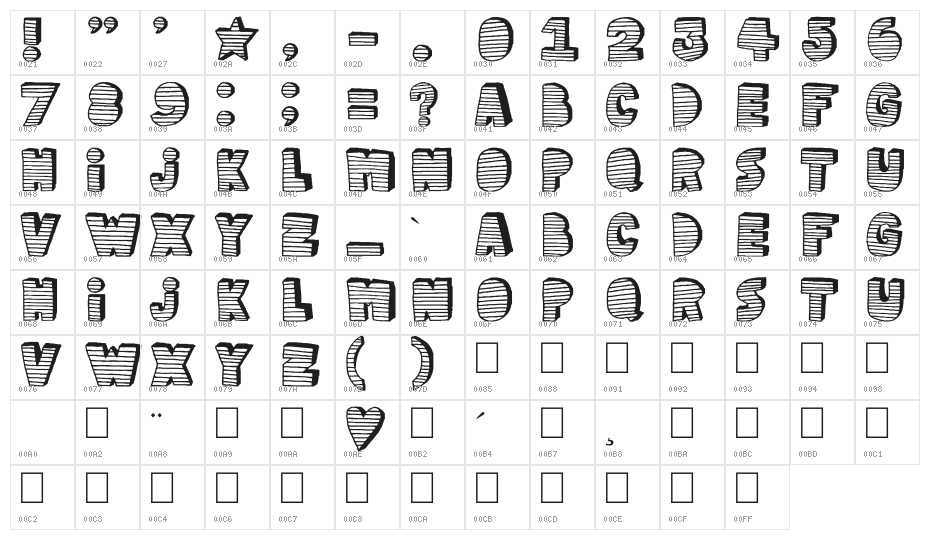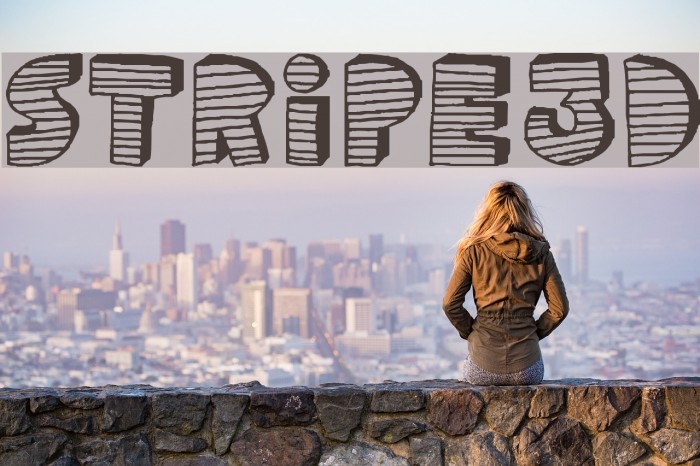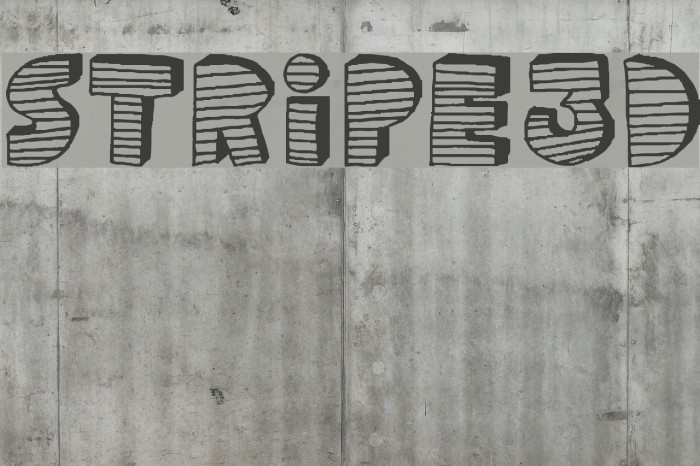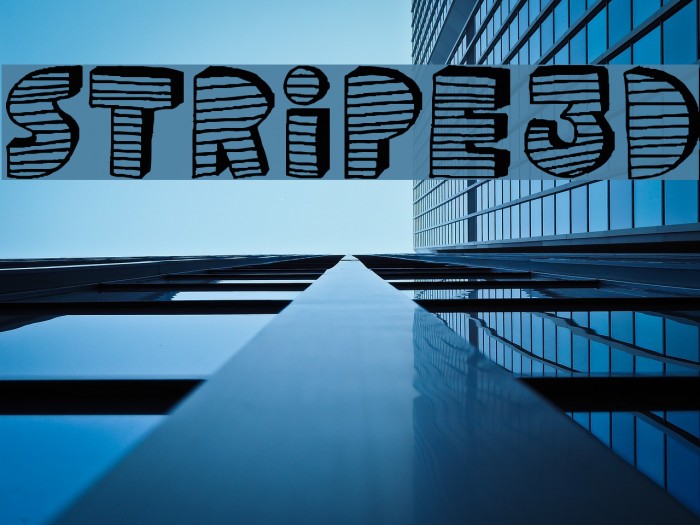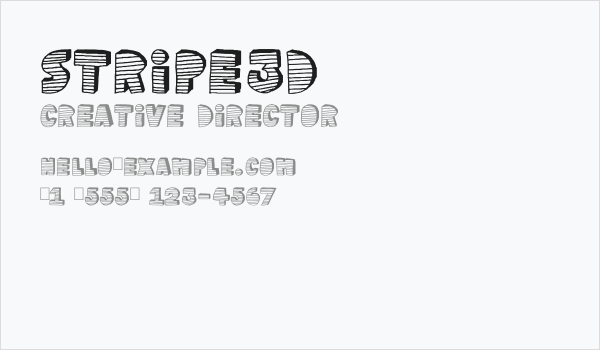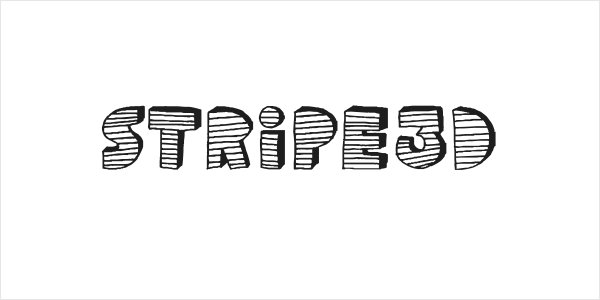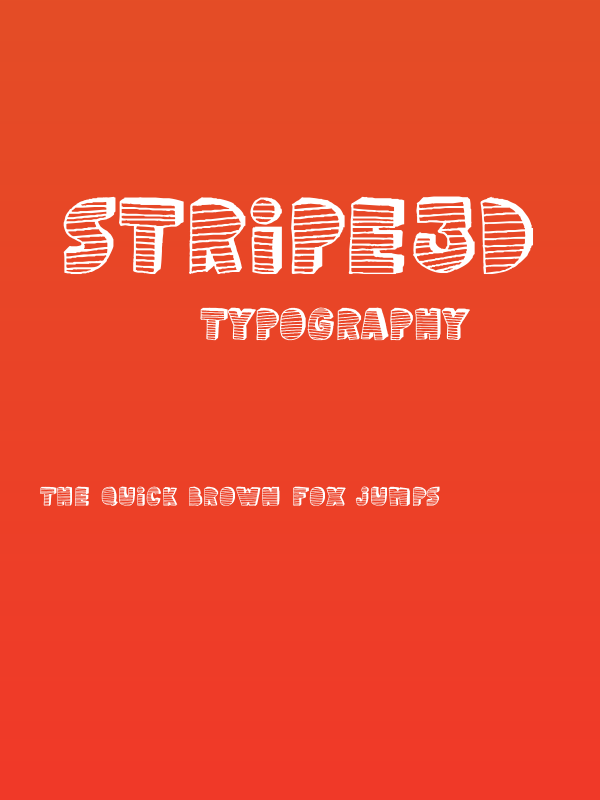
stripe3D Font
stripe3D Description
This font features a playful and bold design with a 3D striped effect. Each character is outlined with a thick black border, giving it a strong presence. The interior of the letters is filled with horizontal stripes, adding a sense of depth and texture. The uppercase and lowercase letters maintain a consistent style, with rounded edges and a slightly whimsical appearance. The numbers and special characters follow the same design principles, ensuring uniformity across the font. This font is eye-catching and ideal for projects that require a fun and dynamic look.
| Overall Style | Playful, Fun, Dynamic |
| Proposed Projects | Ideal for children's book covers, playful posters, comic-style graphics, and creative branding. |